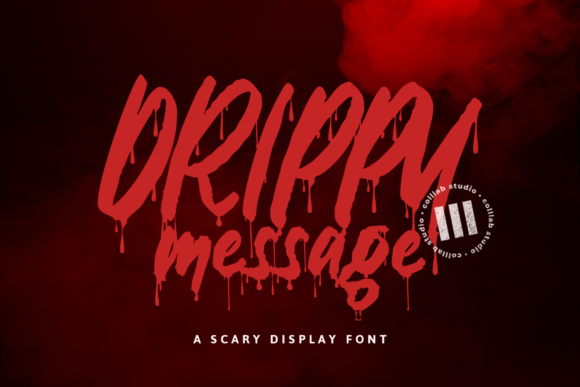
Welcome to the domain of Drippy Message Font, a creation of colllabstudio, where fright and allure intertwine in a spectacle of digital artistry. This display font is not for the faint of heart, as its letters exude a chilling aura perfect for conjuring the essence of Halloween.
Experience the eerie charm of Drippy Message Font, a typeface that drips with horror and begs to be unleashed on your most haunting creations. Whether you're crafting invitations for a spine-tingling soirée, designing posters to send shivers down spines, or weaving tales that make hearts pound, this font will cast an unforgettable spell.
With its dark and macabre nature, Drippy Message Font will effortlessly add an air of mystery and suspense to your projects. Let its haunting strokes captivate your audience, leaving them entranced and eagerly anticipating your next spine-chilling masterpiece.
Unleash the power of Drippy Message Font and witness the transformation of your designs into something truly unforgettable. Embrace the allure of the unknown and let this font guide you into a realm of creativity that knows no bounds.